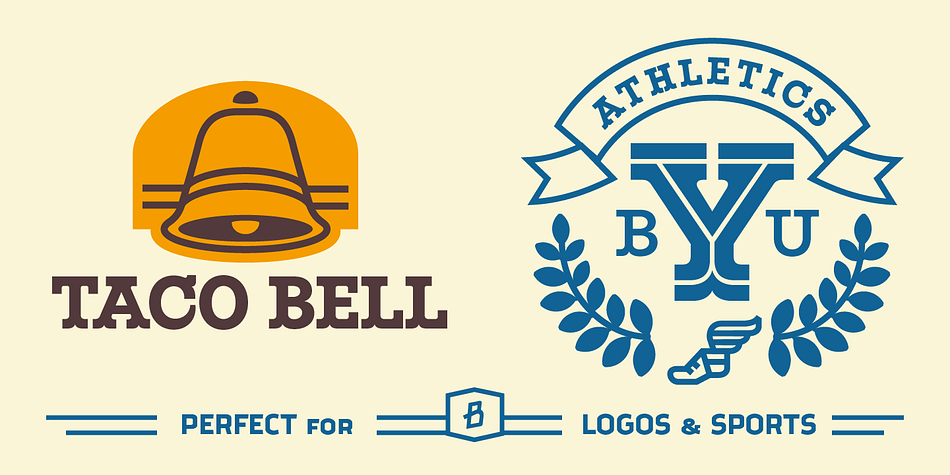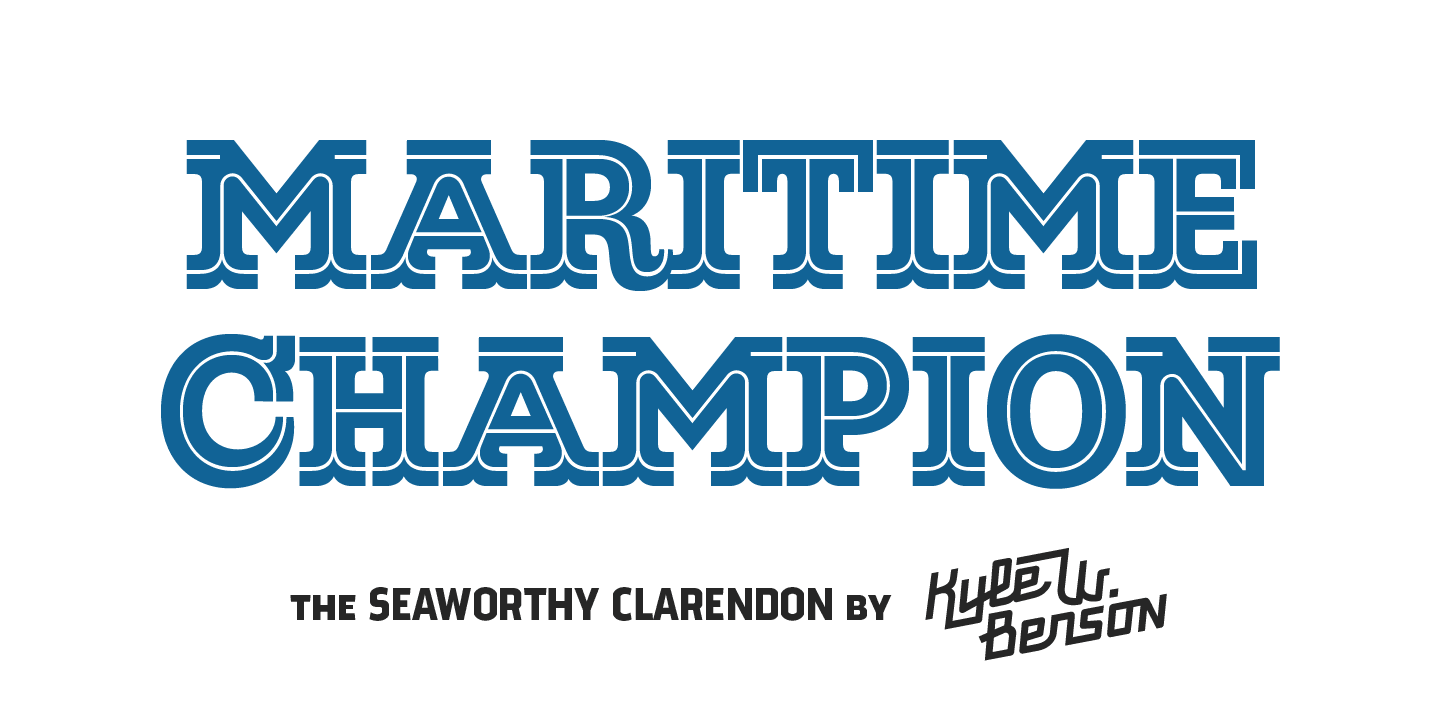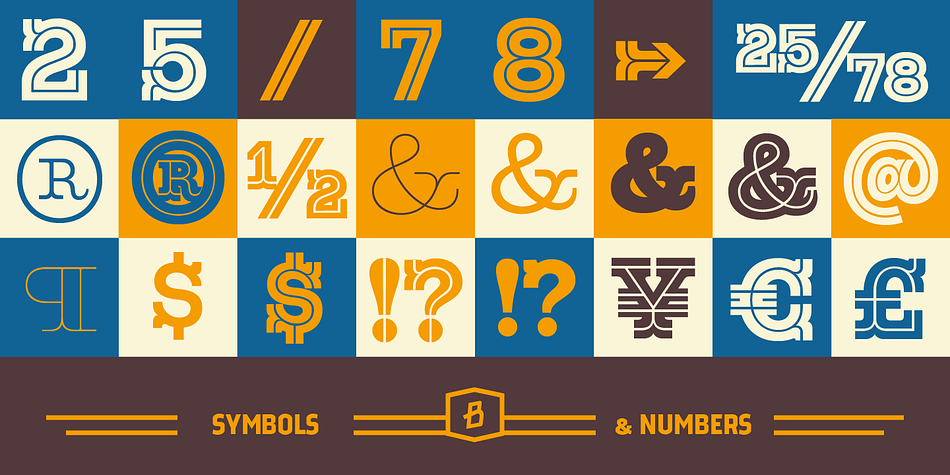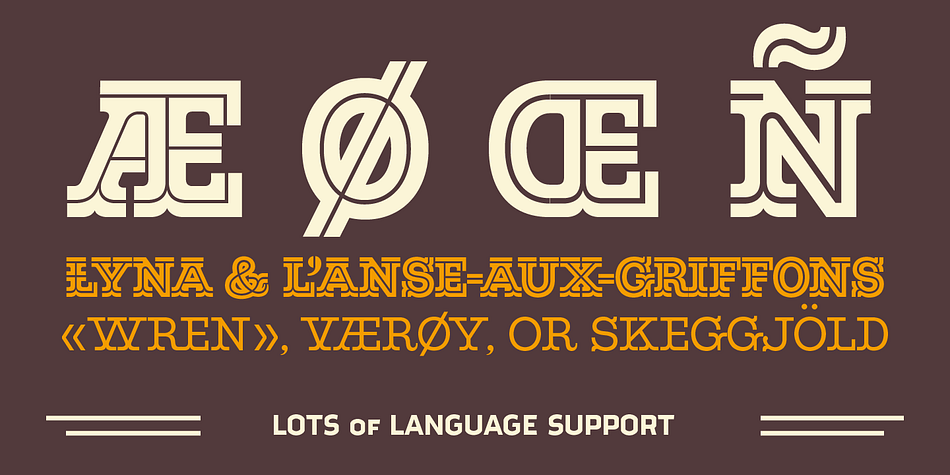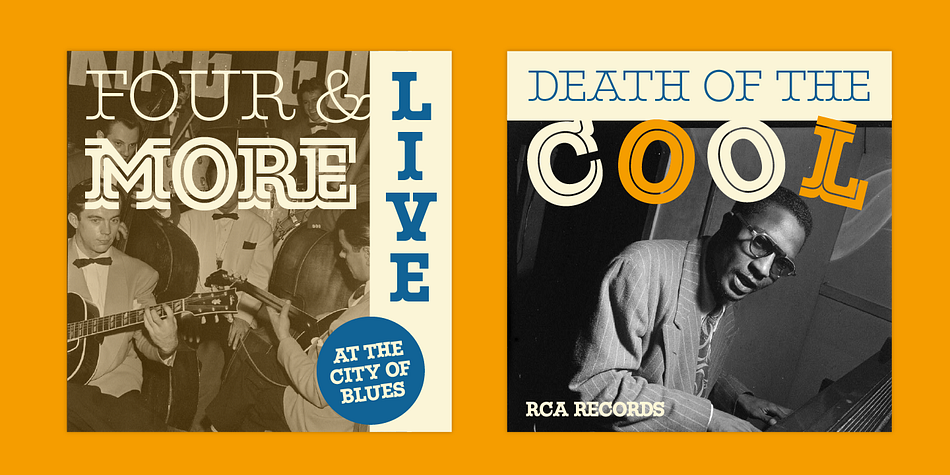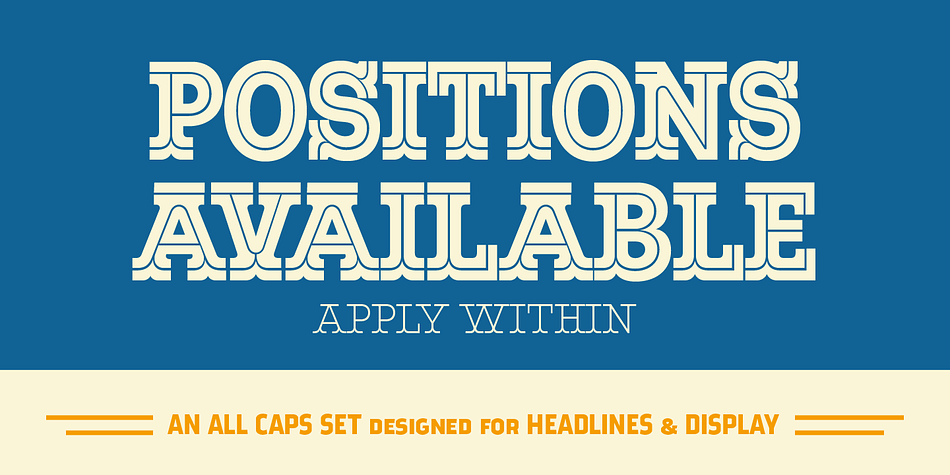
Maritime Champion is a display slab font family. This typeface has ten styles and was published by Kyle Wayne Benson.
Make no mistake, Maritime Champion is not simply seaworthy. This peacoat grubbing, all hands on decking, accordion serenading font is not for the faint of heart. He’s all caps all the time. Even the lightest of his six weights is enough to anchor a Man-o-War in any Caribbean maelstrom.
This 10 font family includes six weights, and a Shoreline style that comes in four weights. It’s an all caps family that includes lots of language options and opentype fractions.